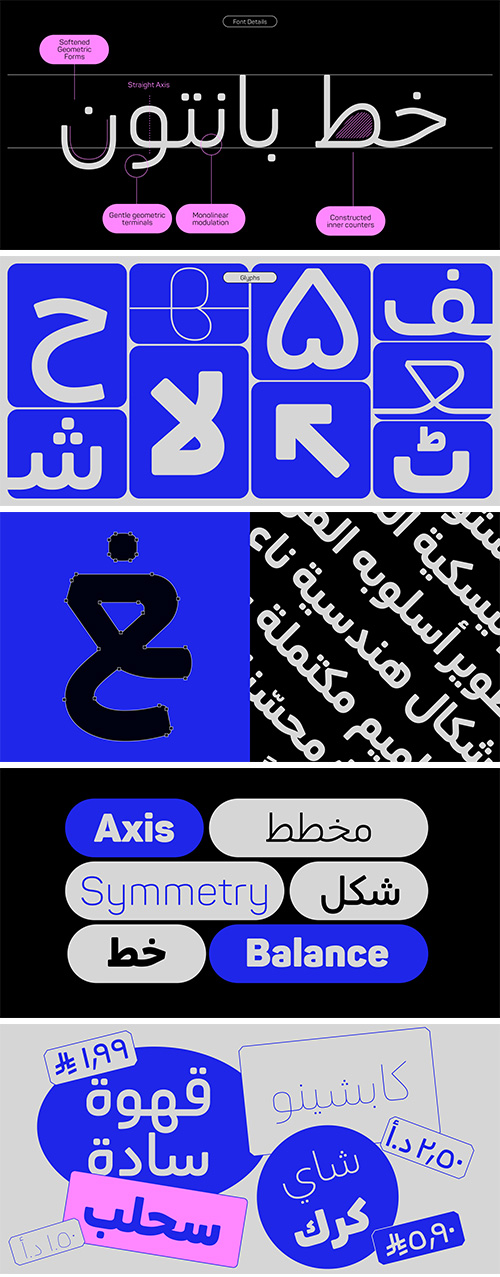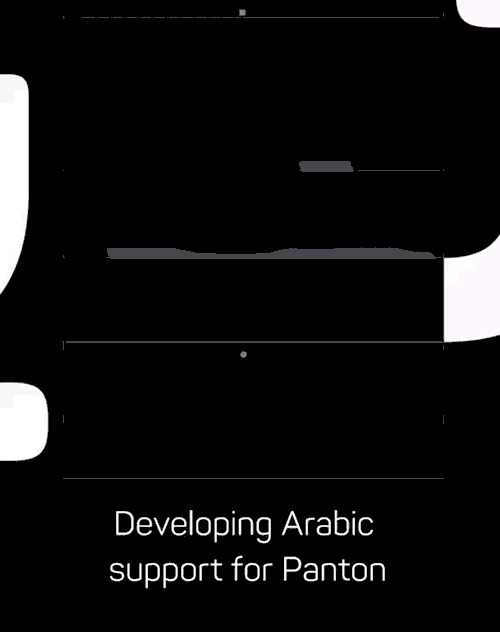
Panton Arabic - 9 Styles + Variable Font Family
- Panton Arabic brings the signature spirit of Panton into Arabic script — geometric, confident, and shaped with a distinctly modern, tech-friendly feel. As the Arabic extension of one of our bestselling type families, it is designed to feel right at home across multilingual brand systems while keeping the visual clarity and softened geometry that made Panton so popular in the first place.
Why Choose Panton Arabic?